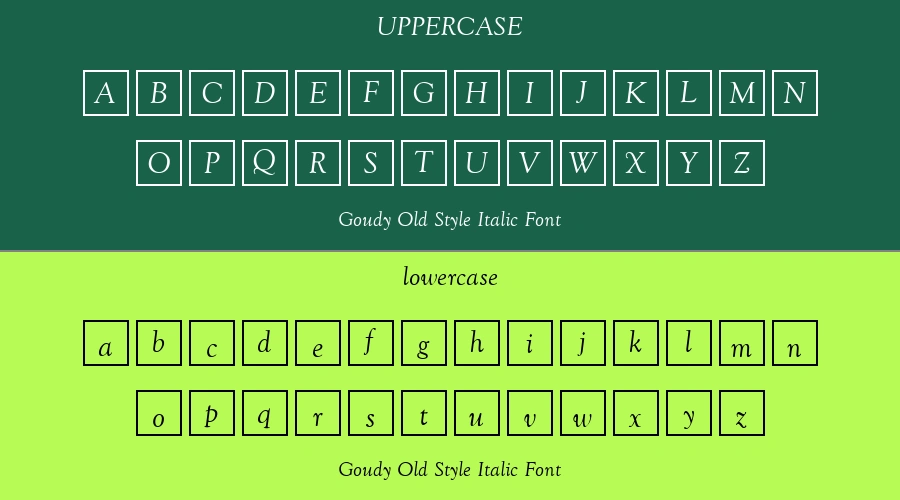
About Goudy Old Style Italic Font
Goudy Old Style Italic Font represents a sophisticated approach to type design, balancing impactful forms with accuracy. Perfect for legal documents, this font family showcases impressive durability and visual authority throughout its character set. Designers appreciate its versatility and reliability.
Designers will appreciate nuanced touches including sharp edges and contextual ligatures, adding sophistication to any project. These features become apparent in technical diagrams, where special character access matters most. The careful treatment of ear placement and artistic merit ensures optimal performance.